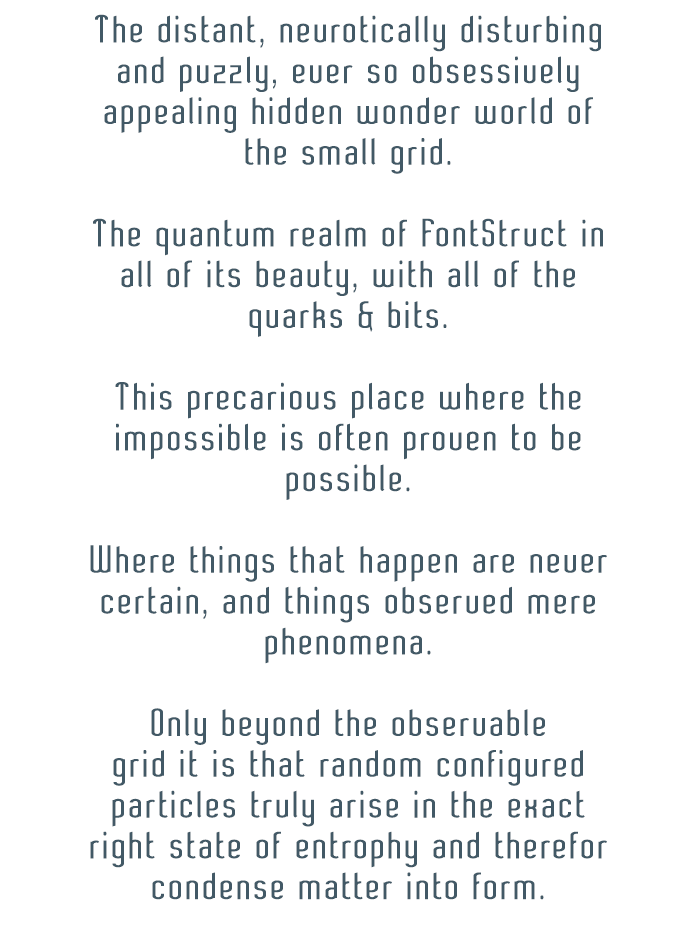
STF_ELEGANZA (Therapy) ― Contemporary geometric humanist sans
A font style, that while simplified by old tradition, saw new light by modern sophistication.
It comes in a solid medium weight that is very suitable for body style text with good readability, but it does perfect clean headlines or ads as well.
The goal was to make a clean but somewhat more contemporary and playful take on a 'Grotesque' sans-style.
In an attempt to break away from the traditional trend of Grotesque type designs which evolved more around pure geometric shapes and aim for perfect circular, triangular or square shaped letterforms, that in return give many of them a somewhat harsch and featureless mechanical appearance, I choose to try and achieve the opposite, aiming for a softer, friendlier and more humanized feeling instead.
Dimensions: (in grid units)
X-Height: 1 .625
Cap-Height: 1 .875
Em: 3 .5
Brick Size filter: 2 : 2
This is the 'Therapy'-style in the 'ELEGANZA' typeface family. This version basically aims for the exact opposite effect than what the Tight' version did. The name 'Therapy' relates to its 'opened-up' appearence and the overall de-stressed propperties of this version. The more relaxed and spacious distribution remotely resembles the characteristic feel of a typewriter face. But the main purpose for this version is to create visual hierarchy in your layout.
This version also optimizes legibility at text sizes on-screen, generating crisp and clean text, even as small as 10pts you still get crisp text. Making this the perfect candidate for a webfont.
I did a slight update to this font as well just now. Mainly restoring proper geometry for
some characters and symbols that got distorted beyond what is concidered acceptable.
The changes in Size > Weight distribution and De-stressed contrast were achieved by
adjusting the values for the grid scale filters. And some basic geometry got lost due to
the distortion of its original aspect ratio. Especially the more pure geometric forms such
as Circular and 45° Slants tend to get heavily affected by this.
These unwanted results now have been corrected for the most part.
- [ Some internal tech stuff related to the last update ] -
I changed values in correlation to the mathematical properties of the FS Editor's grid
and the square grid unit's integer, which is 8. Within this math function the number
8 represents the factorizing of (x²)'s (x/y)-function for 1 square grid unit.
So in other words,
1 grid unit, or (x²) = (8⋅8) = (8²) = (8x8 -intervals)
These correspond to several of the FS-Editor functions. One that breaks down all of
this into more simple terminology is the 'Nudge'-function. As we all know, the range
for FS's 'Nudge'-function is (4+4) x (^2) for (x/y),
so in other words (8²) total, equaling 1 full square grid unit.
In simple non-math terms this means that the adjustments I made to the grid scale
filter values translate to the calculation of adjustments in exact fractions of the font
size and grid unit factor. The fonts Em-Square and therefor its Size (3.5x3.5)
is based on its relative units for
—(Cap-Height, X-Height, Stroke, Stress, Width, Ascends & Descends)
Basically all the things that determin the glyphs positioning within the Em-Square box.
I made very sure that all of the different values for the fonts measures were exact
multiples of 1/8th or (0.125) grid units.
This strict mathematical approach is also the key reason for its strong optimization
for crisp on-screen digital text of all sizes, even down to the very smallest.
The original font style had a stress ratio that is equal to 2:1 (But instead this was
done with resized composite bricks and not by way of scaling filter adjustments)